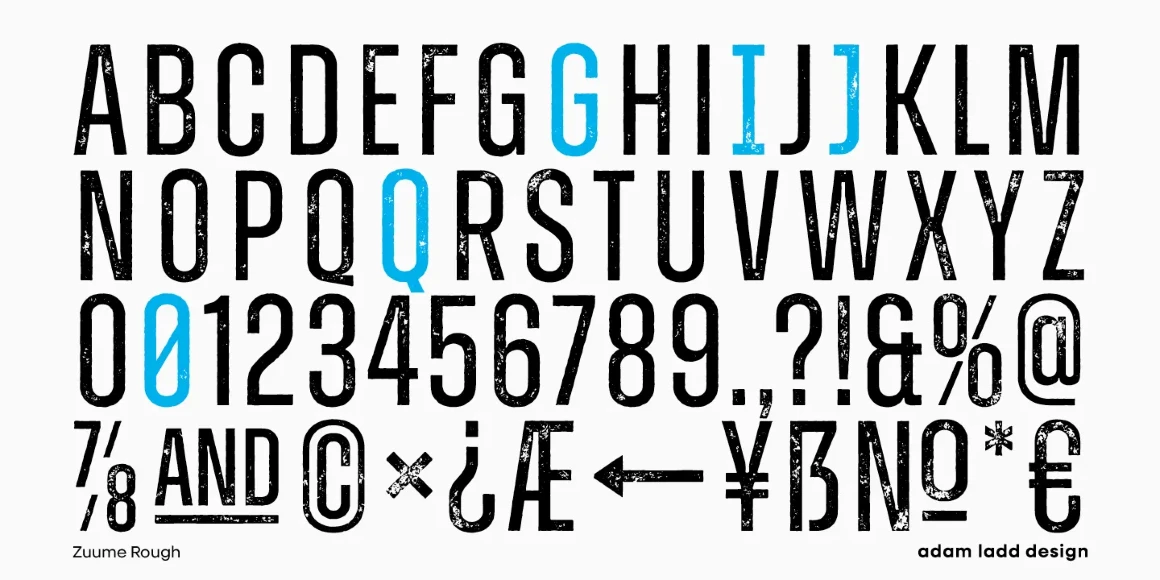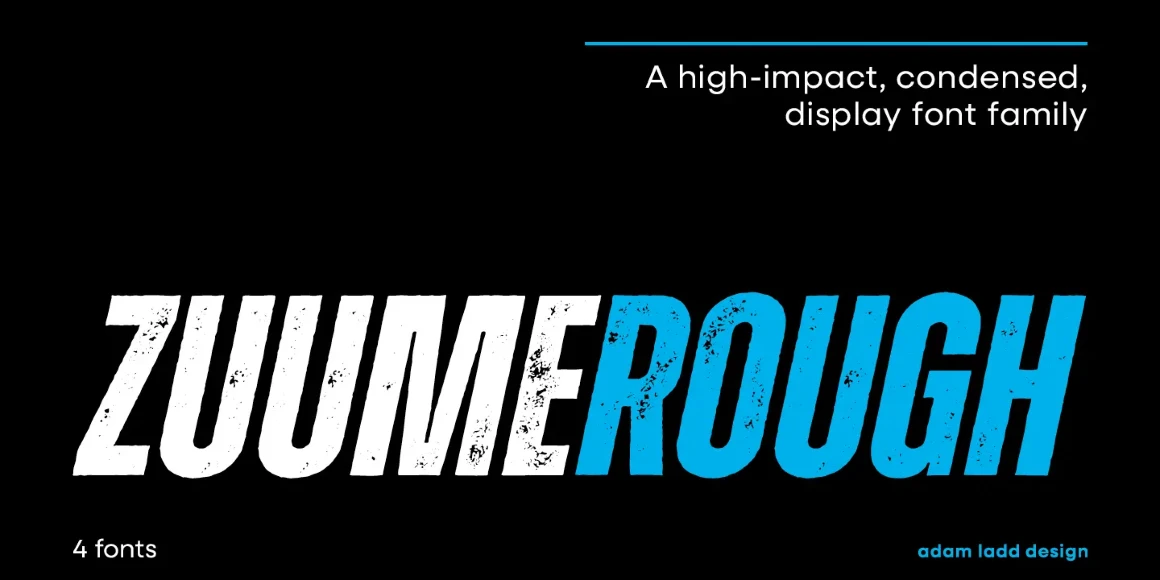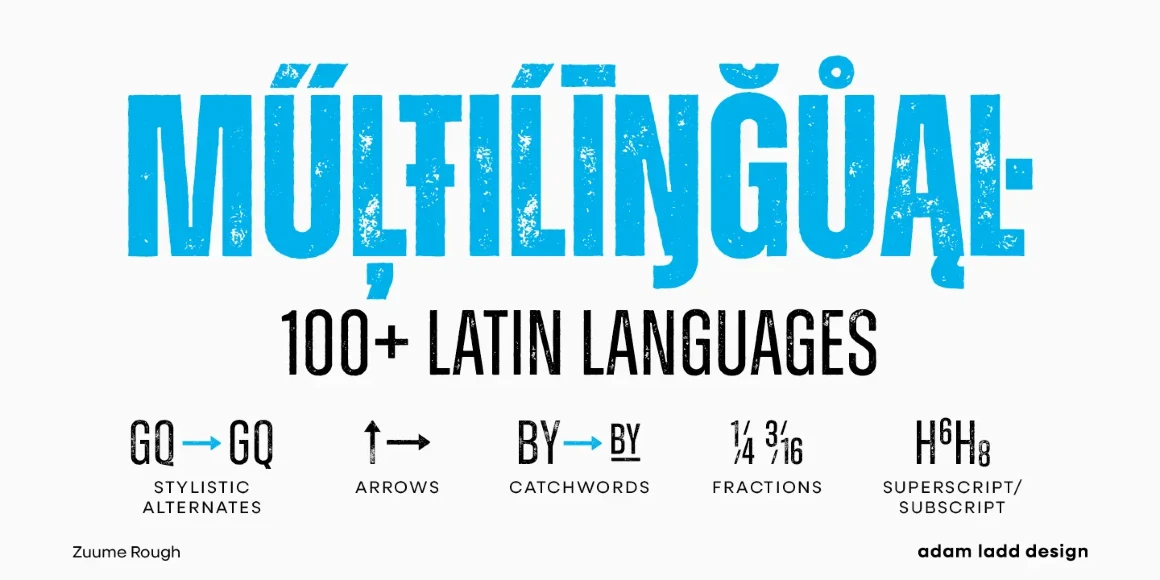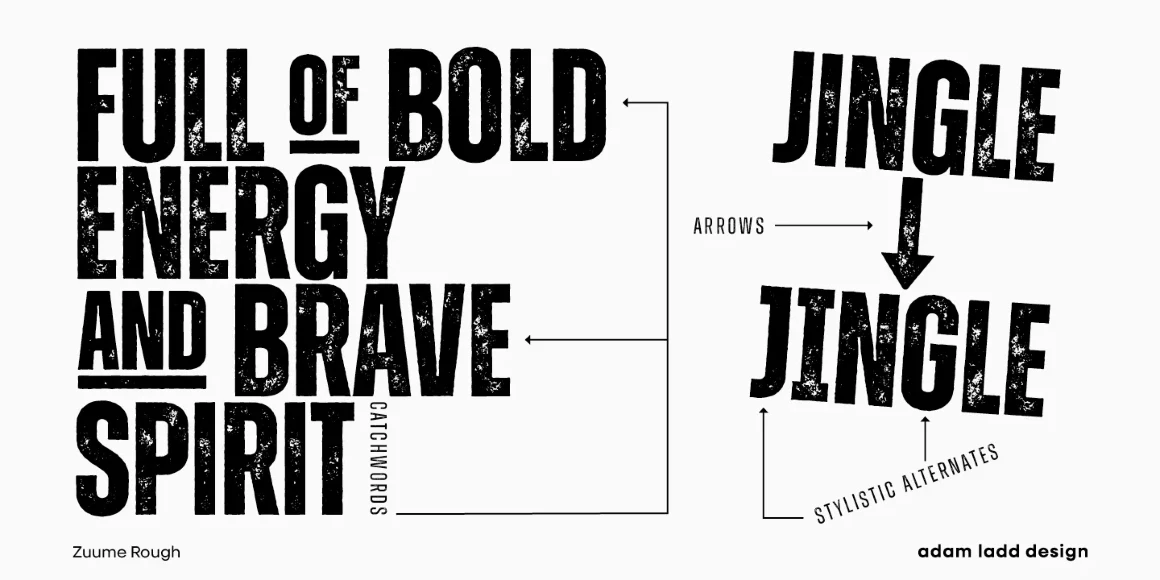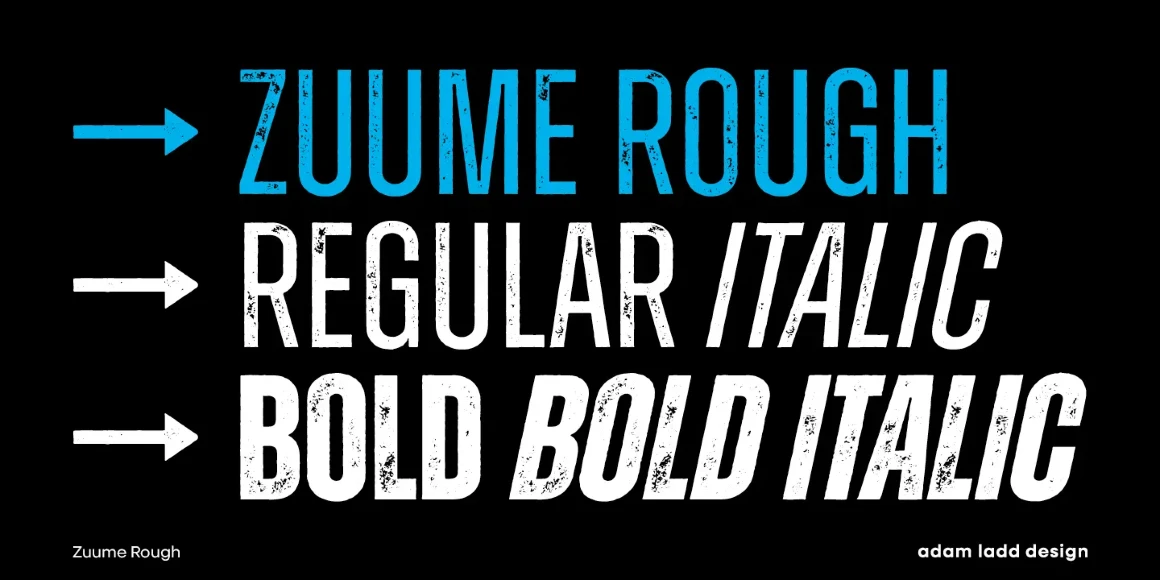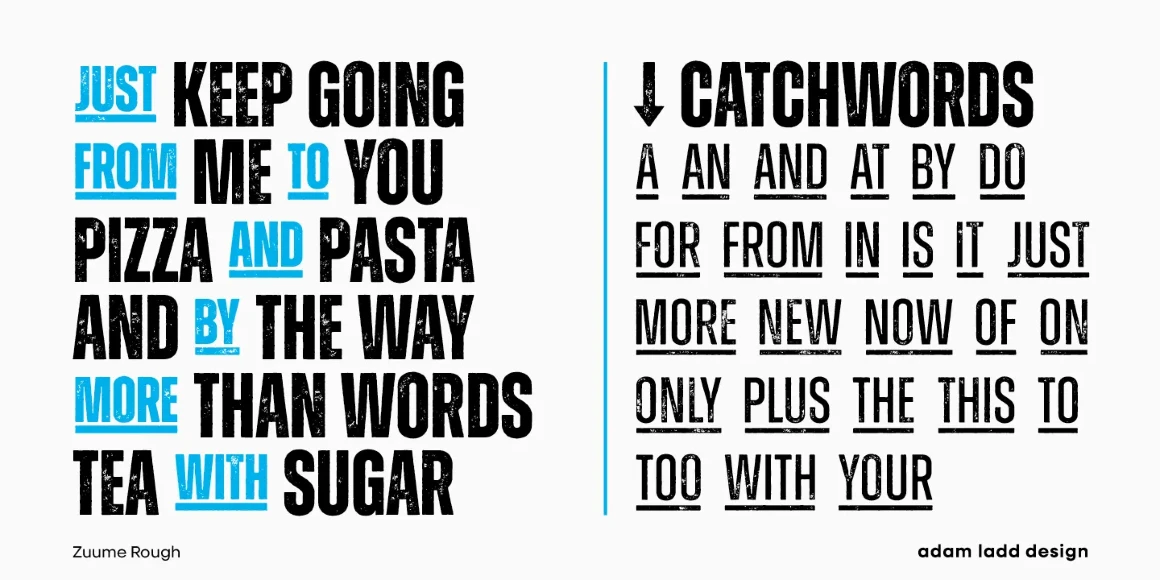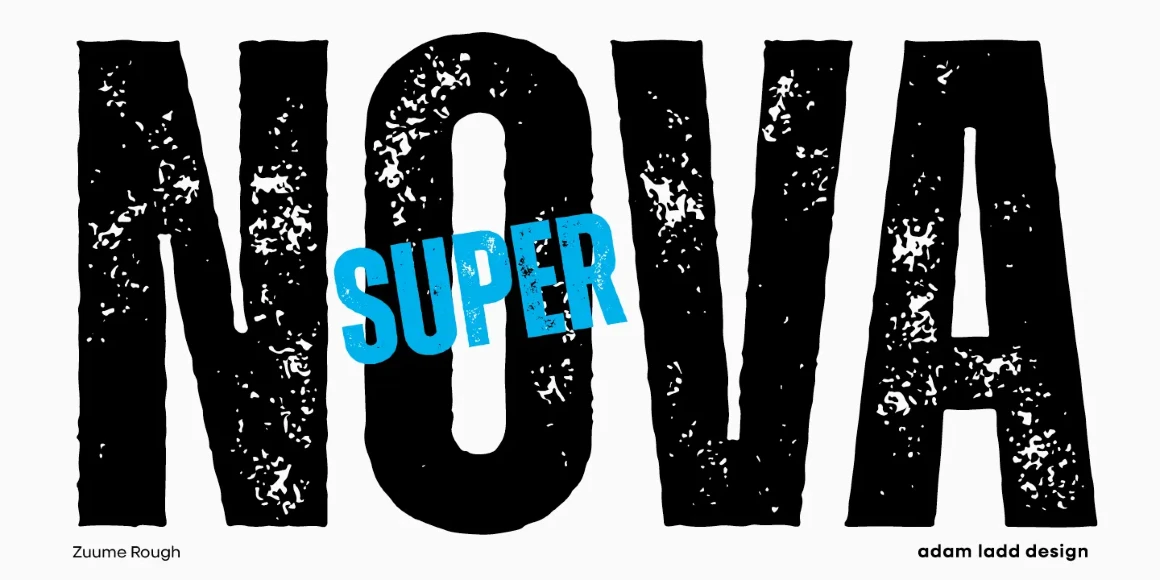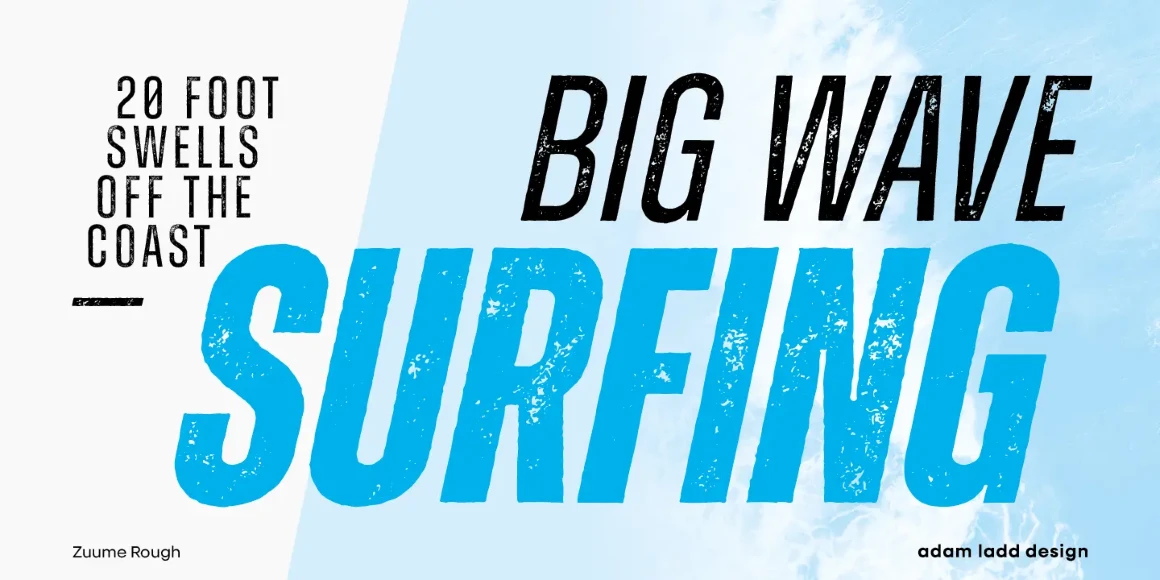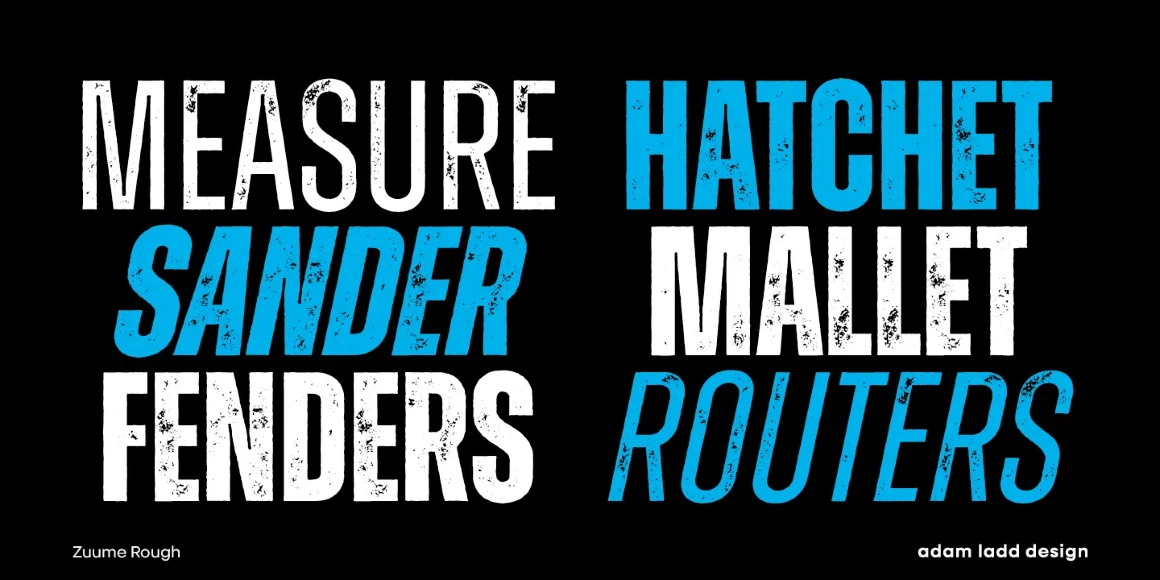
Zuume Rough
By Adam Ladd
Zuume Rough Regular
Zuume Rough Regular Italic
Zuume Rough Bold
Zuume Rough Bold Italic
Zuume Rough is an attention-grabbing texturized condensed sans, sure to leave a lasting impression. This versatile typeface is designed to add authentic visual appeal to magazine headlines, lifestyle media brands, food packaging, rock concerts, sports entertainment, or anywhere else designers need to evoke a visceral, almost tactile response. It is available in 2 weights, including italics, catchwords, and arrows. Zuume Rough will make your typography unforgettable and set your work apart.